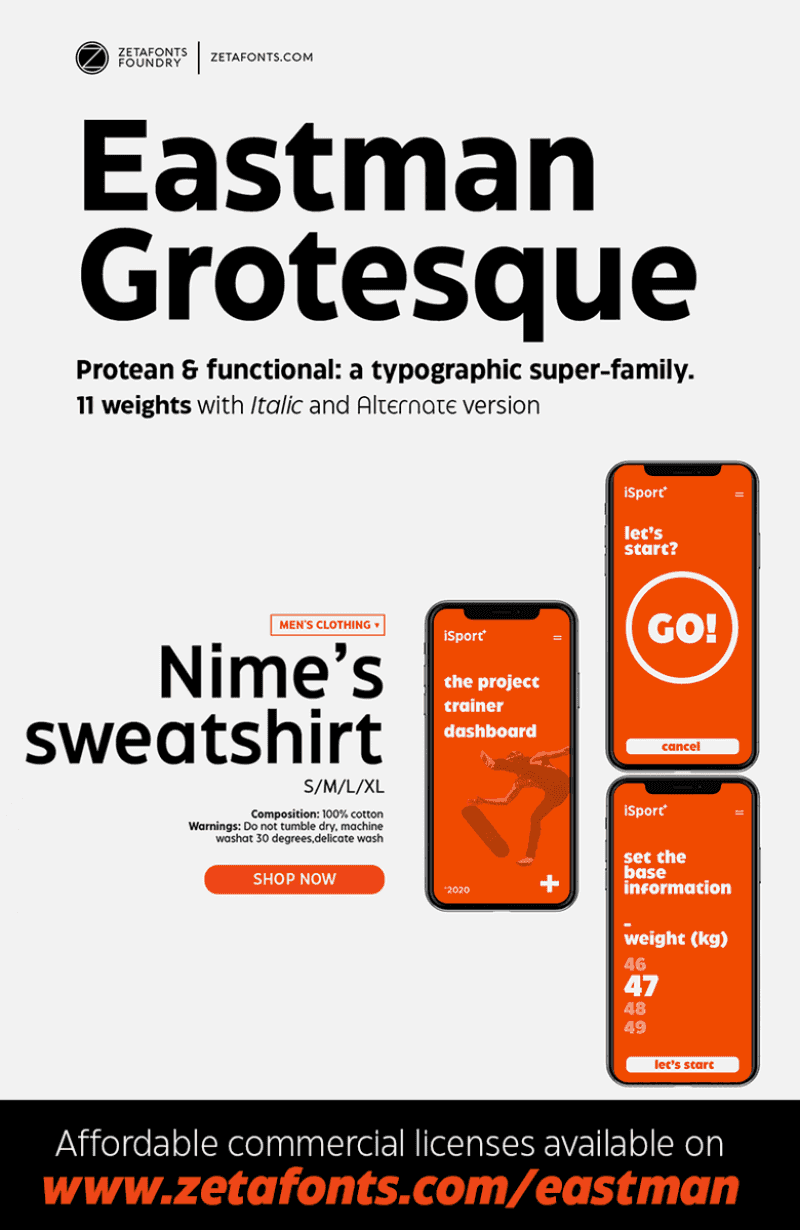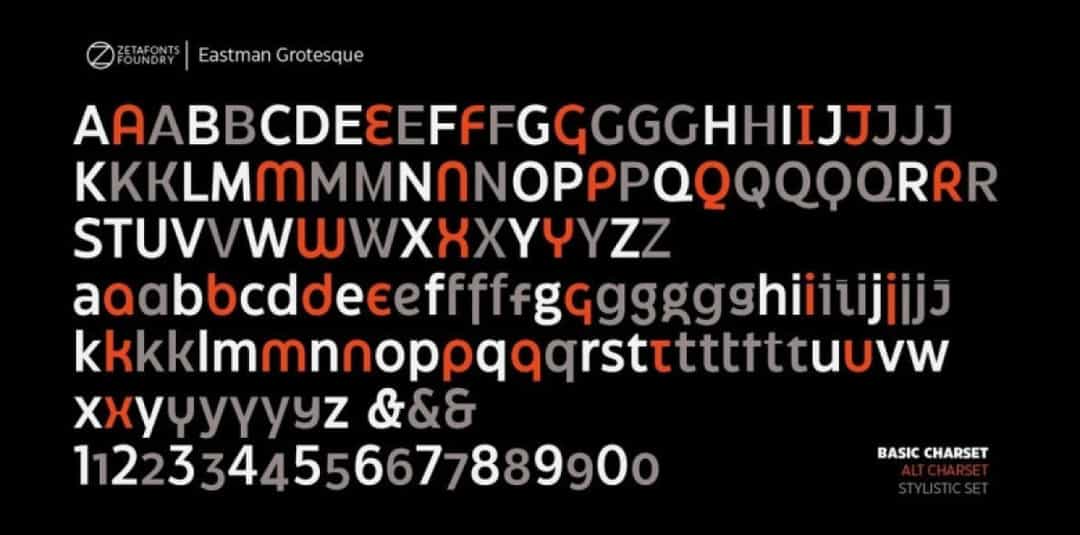
Eastman Grotesque Font was first released as a geometric Sans Serif typeface by Zetafonts in 2020 under Francesco Canovaro and Andrea Tartarelli’s direction, along with Solenn Bordeau and Cosimo Lorenzo Pancini’s assistance. This typeface family was intended to offer maximum text and display flexibility with maximum versatility as its aim.